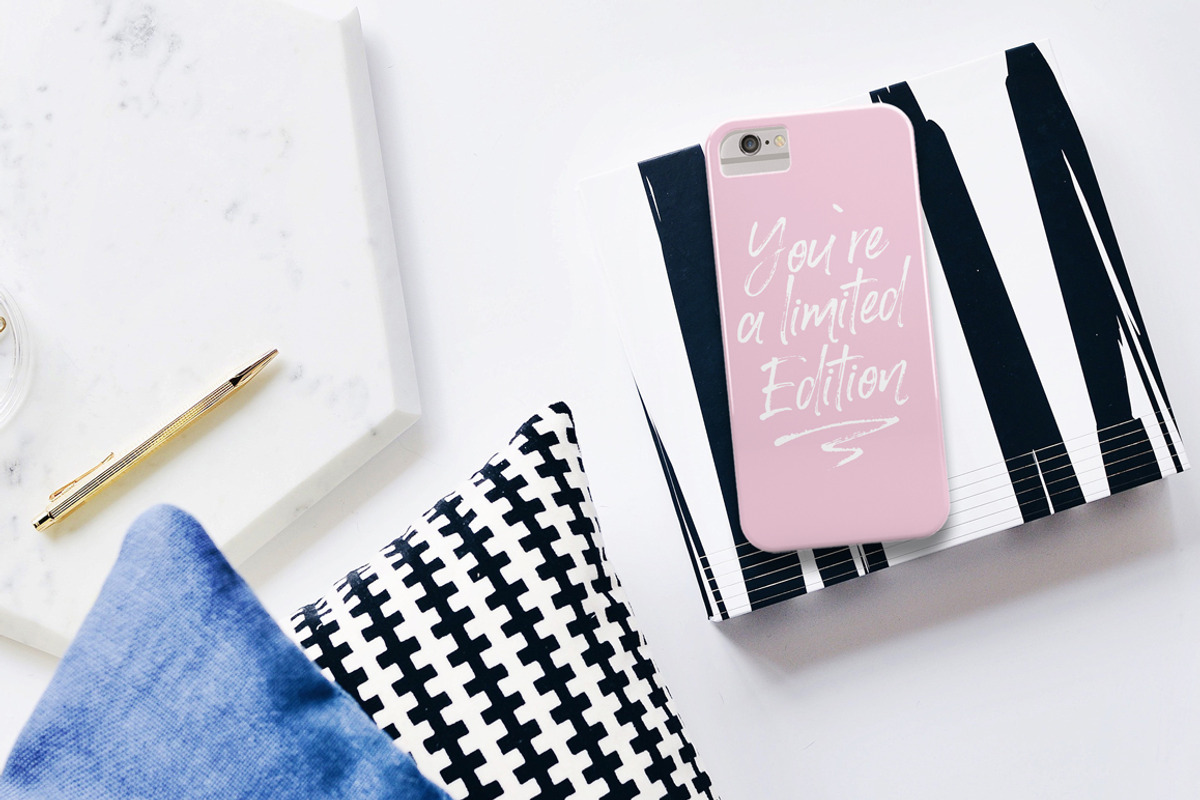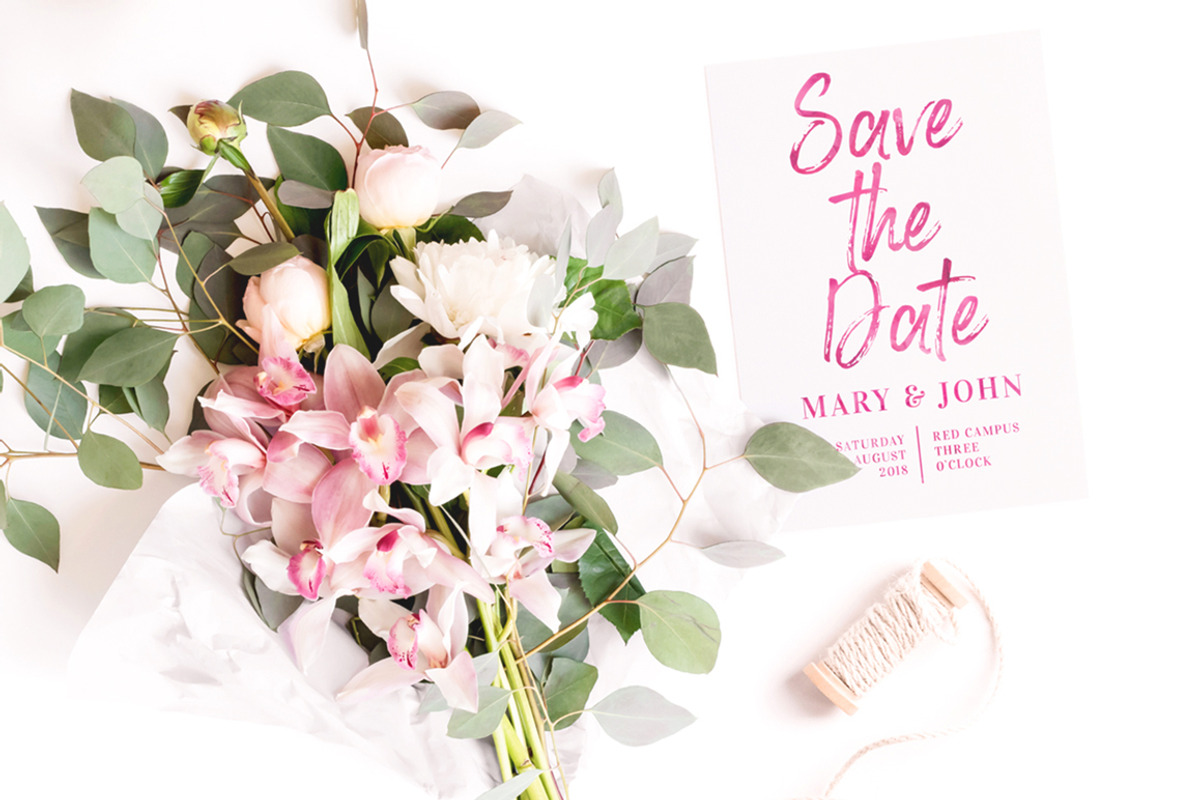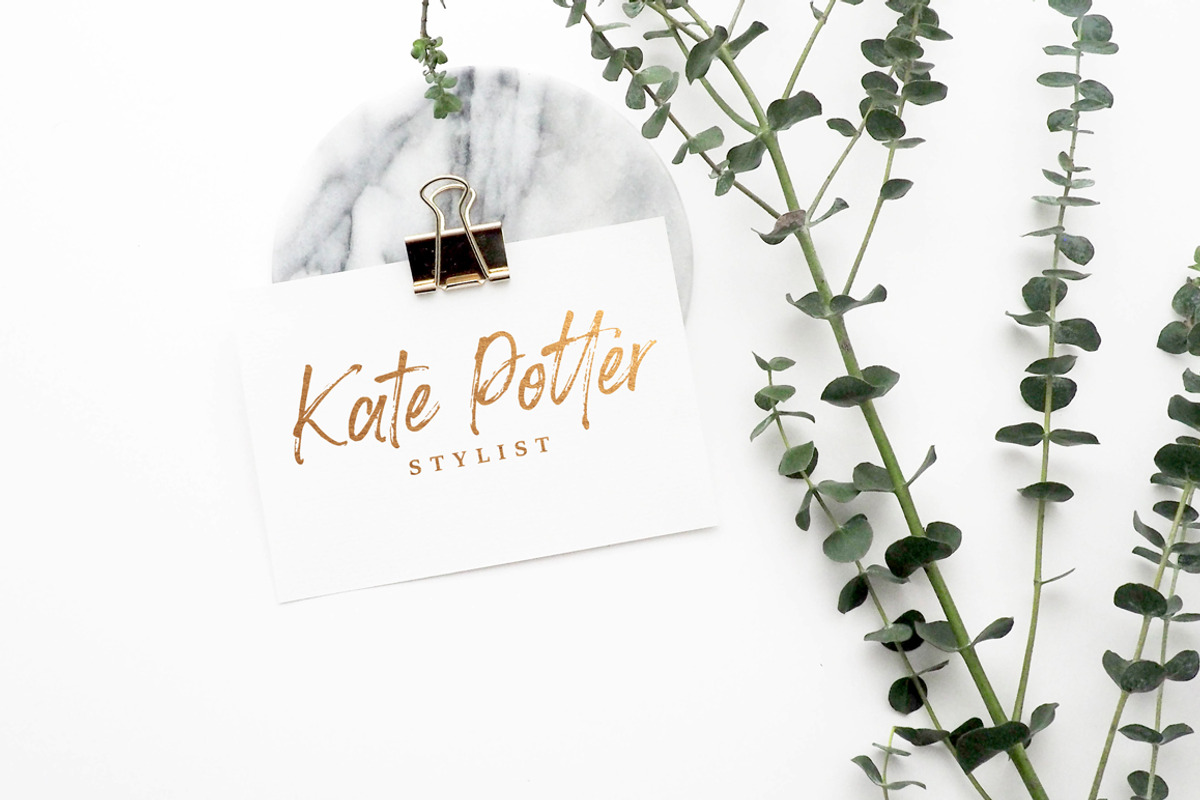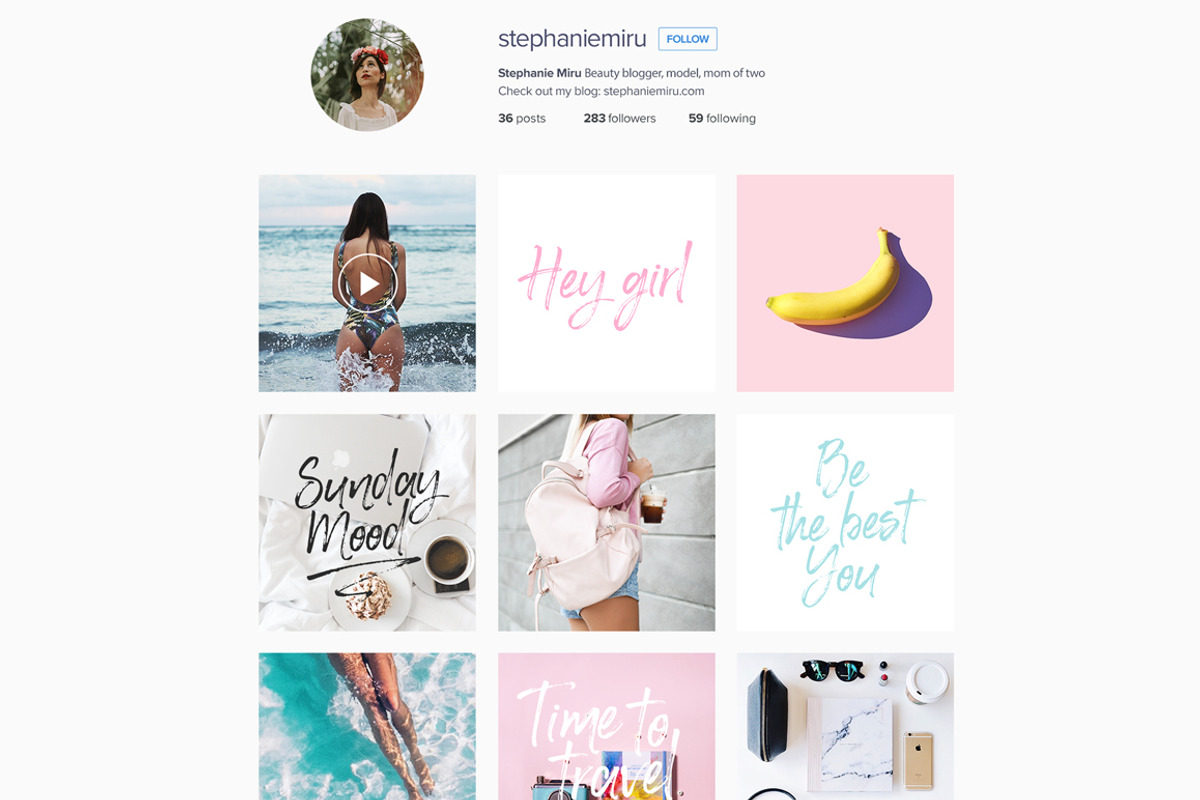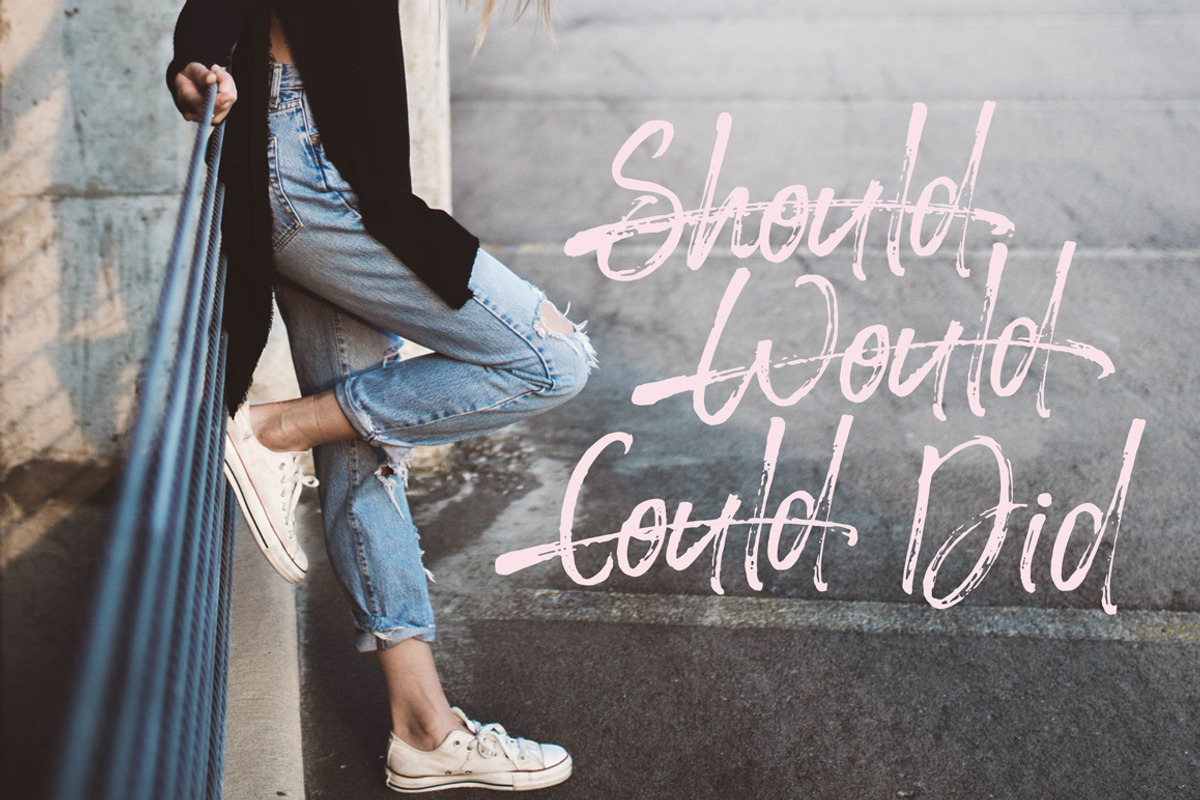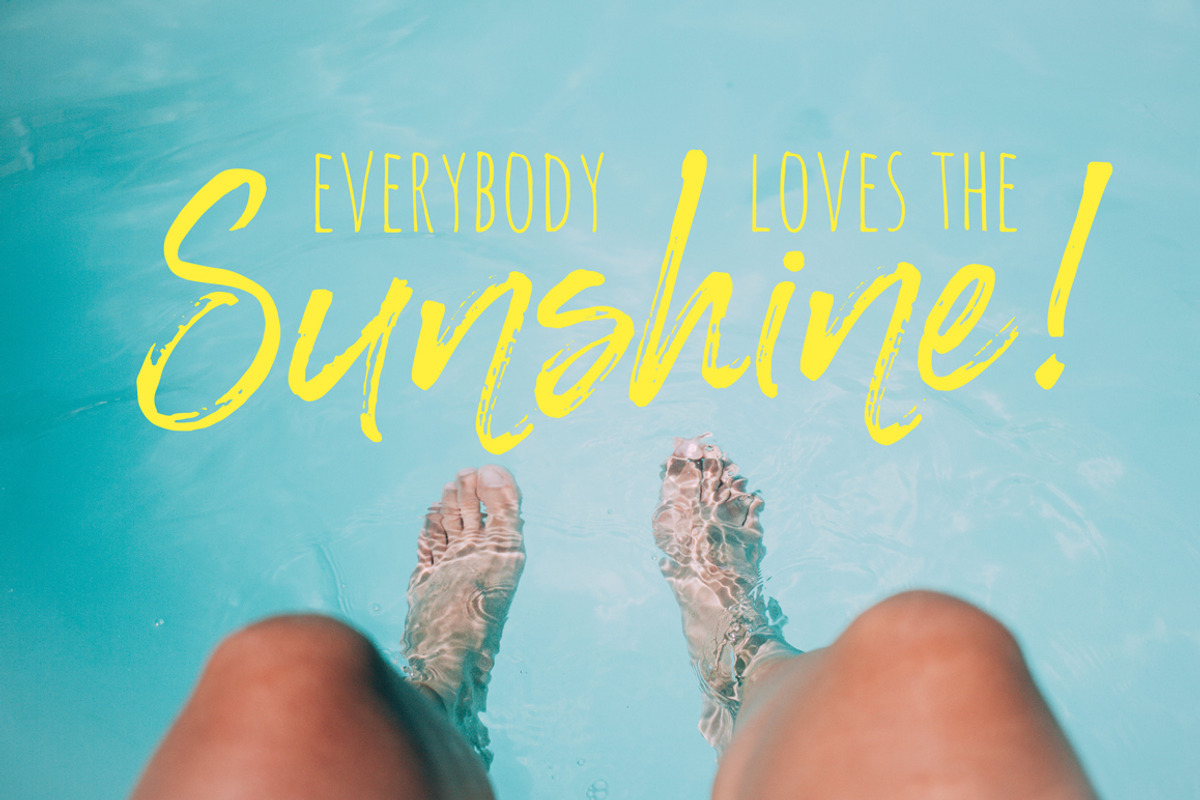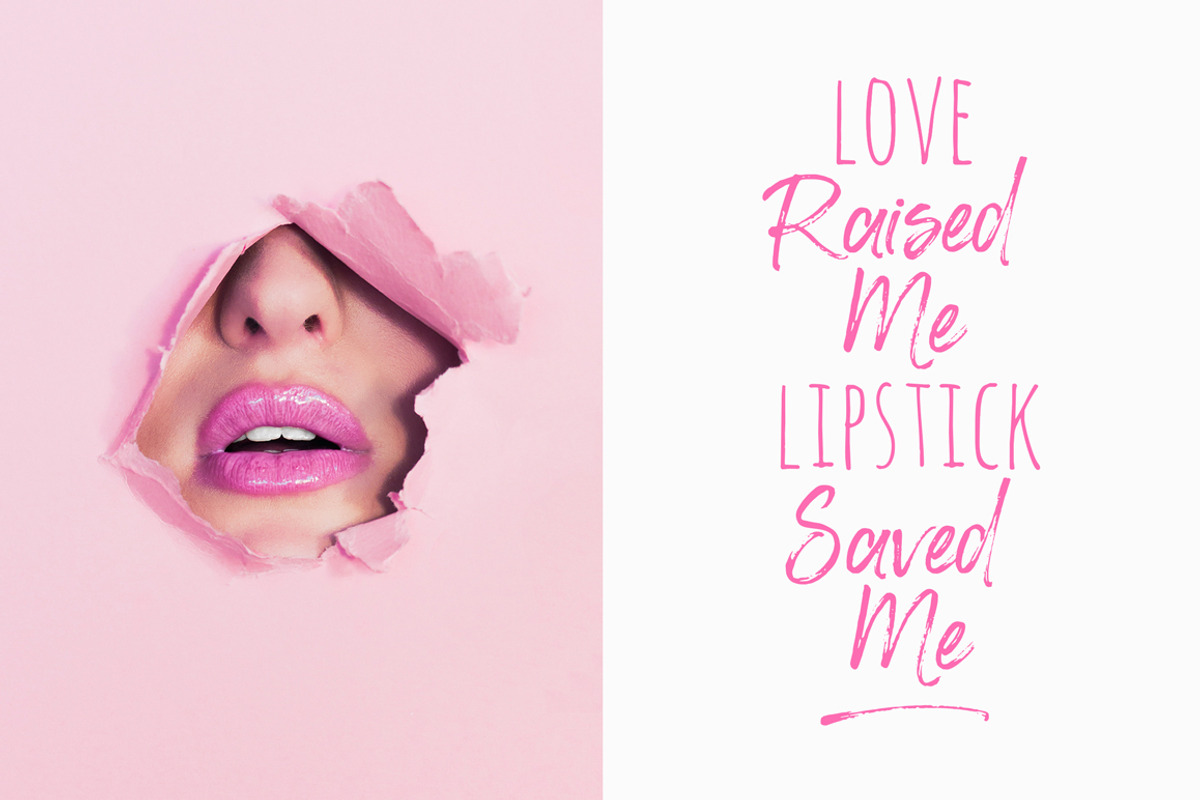
Happy Trendy Font + Extras
Introducing Happy Trendy! Font and Extras.
Сourageous, lush and super handy, Happy Trendy is a casual dry brush font with a playful mood. This independent and feminine font will give your awesome designs that fresh and fashionable feel to it. Happy Trendy Font will look lovely in multiple designs like wedding invitations, website logos, Instagram posts, quotes, cards and all your other lovely projects.
Happy Trendy Font contains a wide set of punctuation and numerals and also super fun and friendly double letter ligatures, to fit the look you need :) Happy Trendy comes in two styles: Regular and Slanted. Both OTF and TTF versions are included. To top it all off, Happy Trendy comes with a complimentary bonus font with a set of 26 swashes, to give your designs that unique and modern feel.
- Happy Trendy Regular
- Happy Trendy Slanted
- Happy Trendy Swashes